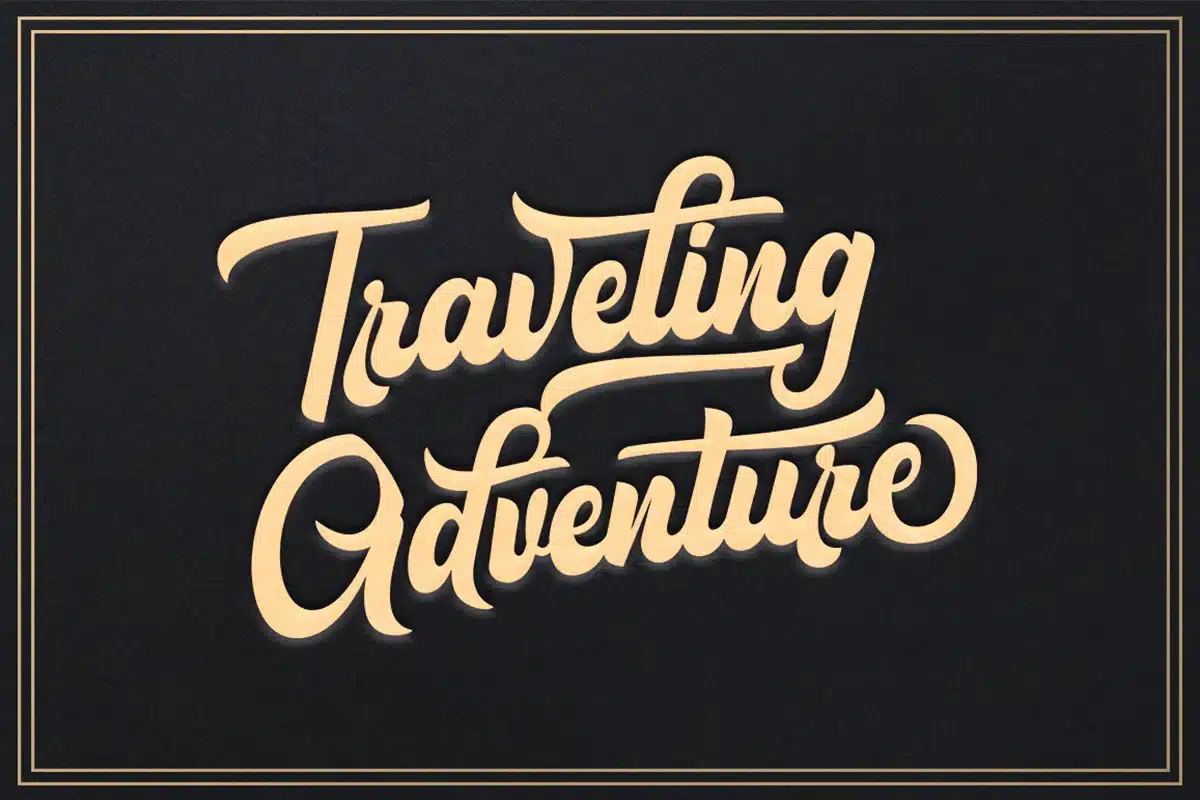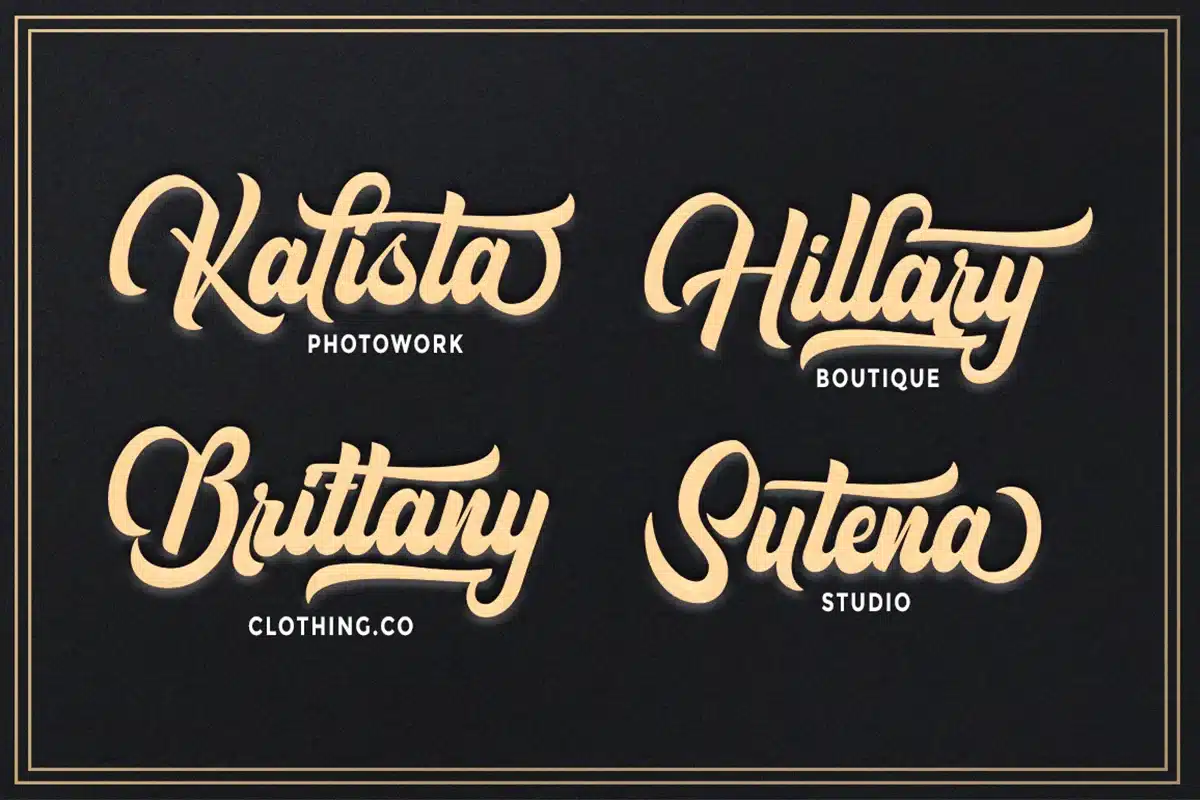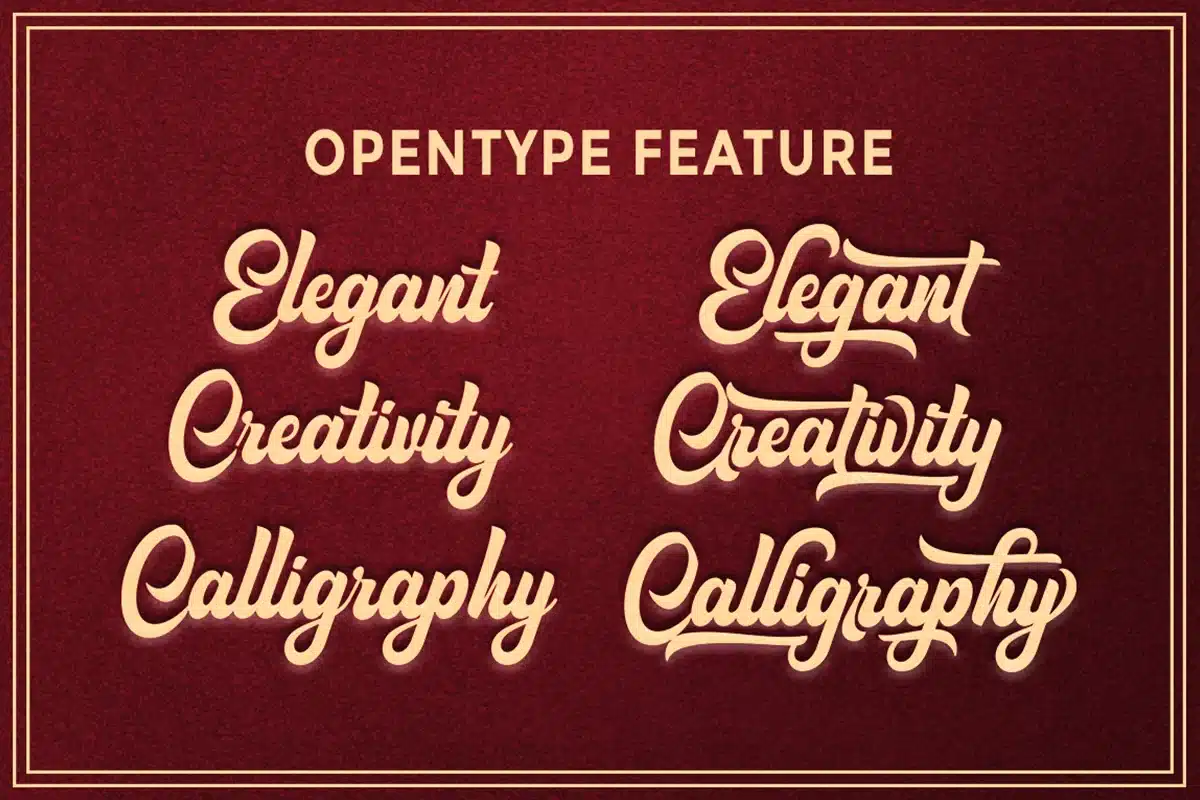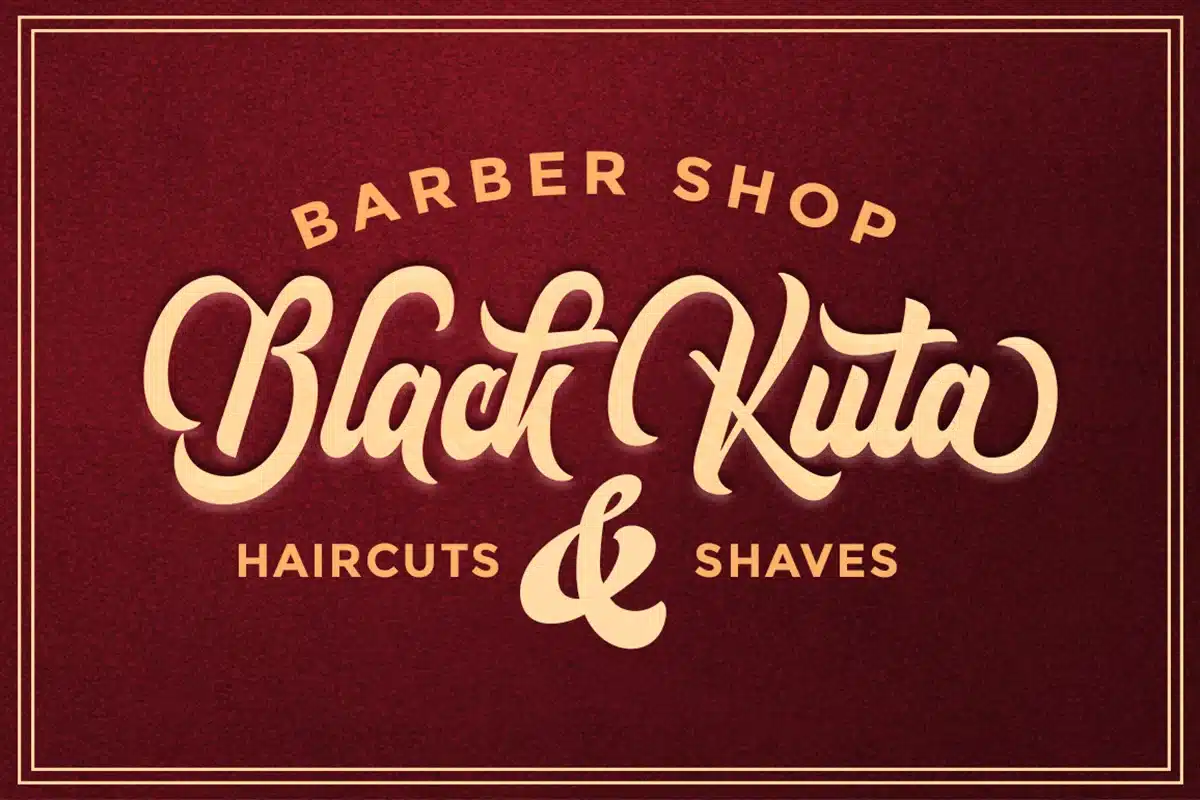
La Vintage Script Font
La Vintage Script is a casual, rounded script font. Perfect for branding, wedding invitations, photography, neon signs, bloggers, logos, greeting cards, logotypes, quotes, and more.
Uppercase, Lowercase, Numerical & Multilingual Support. Stylistic Alternates (Swashes and Ligatures). La Vintage Script is available in OTF and TTF files, and supports PUA-encoded font files for use with software that doesn't support OpenType features like Silhouette, Inkscape, etc.